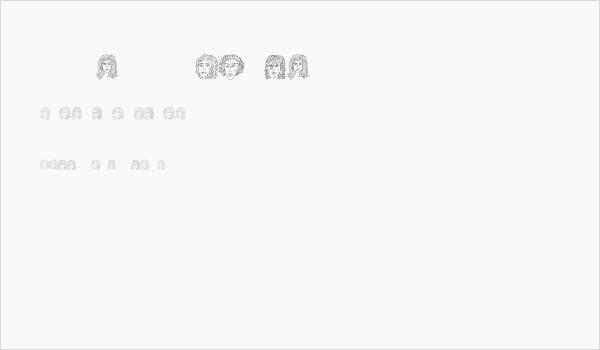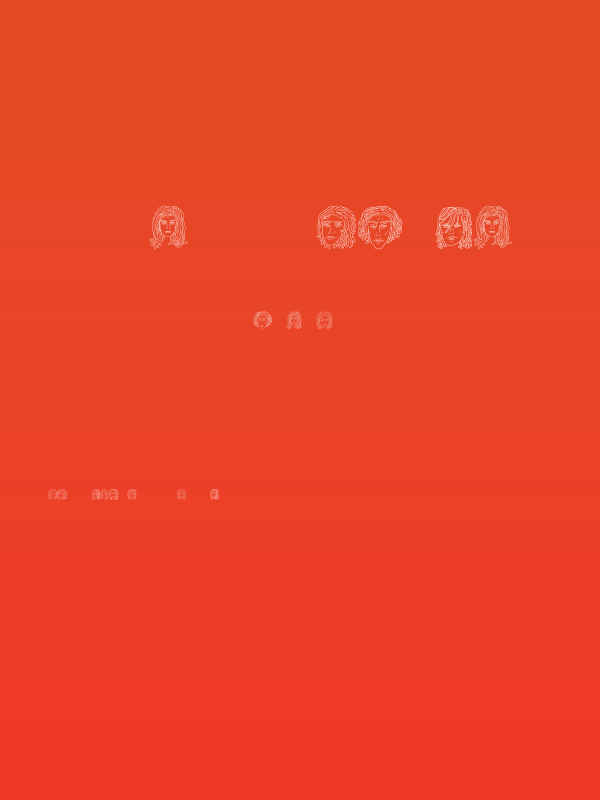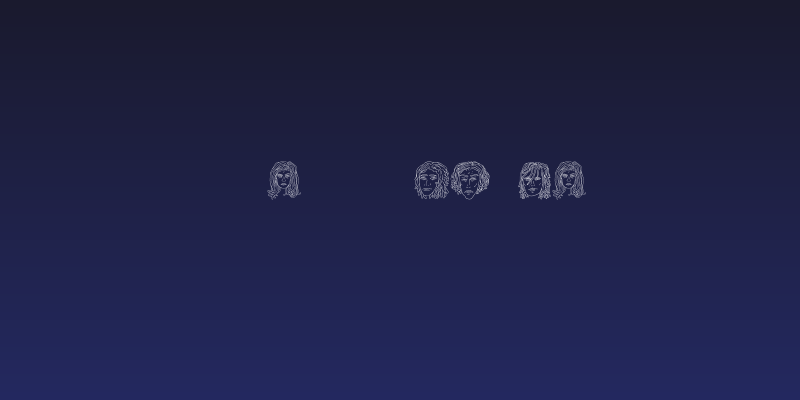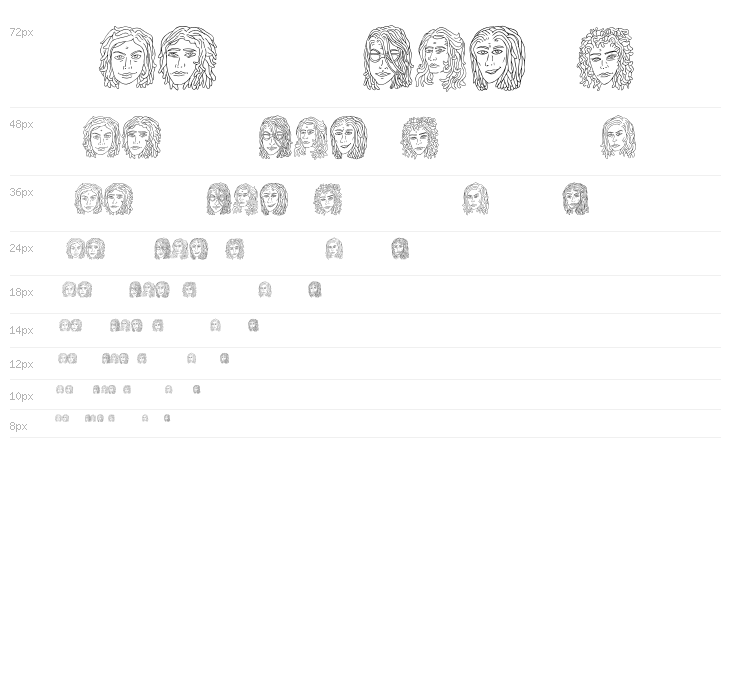
Womano Regular Font
Womano Regular Description
A highly decorative and illustrative font composed of hand-drawn female faces for each character, featuring intricate line work and expressive details.
| Overall Style | Decorative, Artistic, Hand-drawn |
| Use Case | Display, Posters, Artistic projects, Headlines |
| Proposed Projects | Art posters, editorial illustrations, creative branding, event invitations, zines, album covers. |